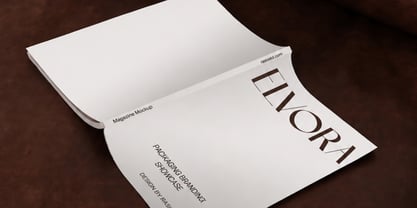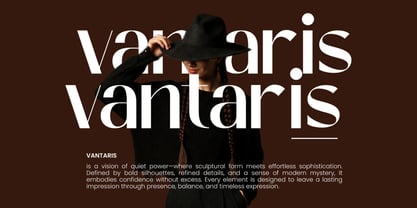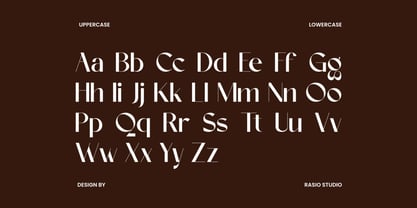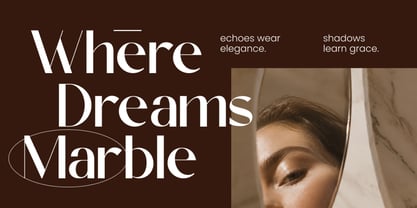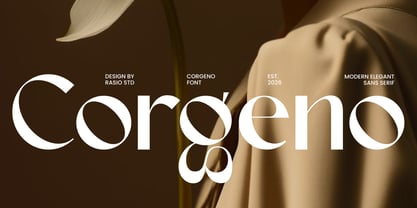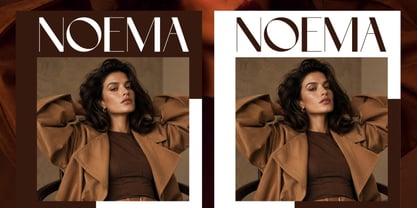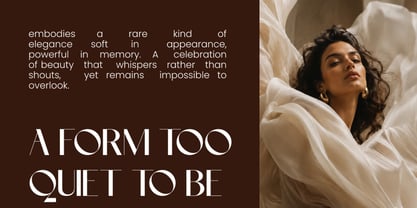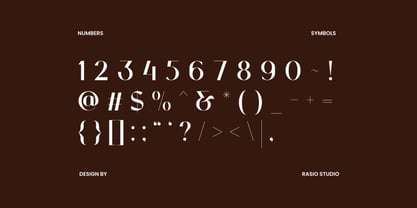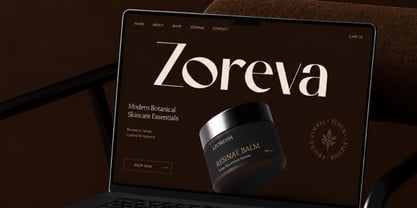
Corgeno
Corgeno is a sophisticated contemporary typeface distinguished by refined geometric construction, graceful curves, and distinctive editorial-inspired letterforms. Its balanced proportions, clean stroke contrast, and elegant open shapes create a luxurious visual rhythm that feels modern, minimal, and effortlessly refined. Carefully crafted details, soft terminals, and harmonious spacing give the typeface exceptional clarity while maintaining a unique personality suitable for premium creative work.
Relevance and Use Case is perfect for premium design projects that demand clean sophistication and contemporary elegance. Its refined geometric construction and editorial character make it an excellent choice for luxury branding, fashion labels, beauty and cosmetic identities, magazine layouts, premium packaging, hotel branding, architectural studios, creative agencies, website design, and modern marketing materials where polished typography becomes the defining visual element.